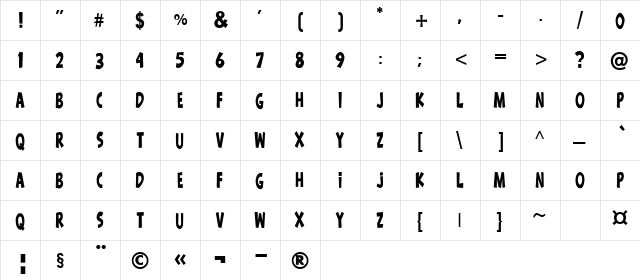
wow emezing reguler Regular
| Designer | Linafis Studio |
Design Context for wow emezing reguler Typeface
wow emezing reguler offers clean, dependable letterforms without strong stylistic allegiance, making it a practical choice for designers who need flexibility.